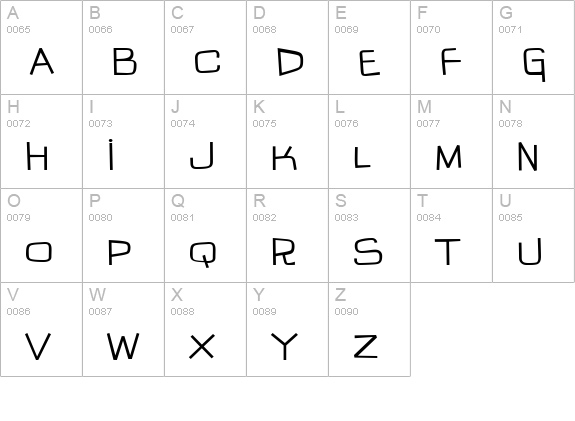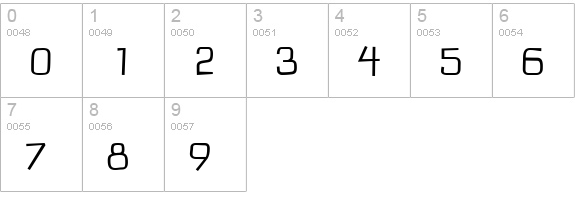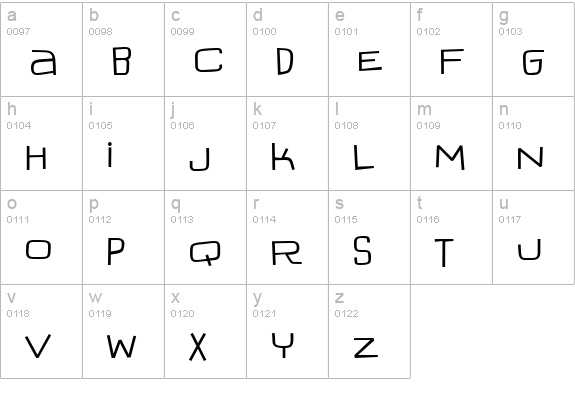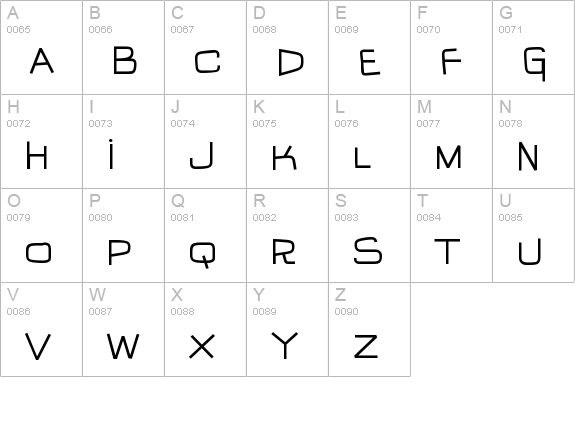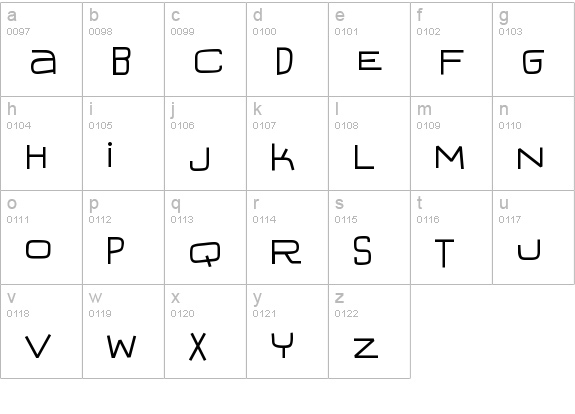
Introducing IguanaLover BTN, a stunningly unique font that will captivate any typography enthusiast. This remarkable typeface showcases an exquisite blend of elegance and playfulness, making it the perfect choice for those who seek to add a touch of charm to their designs. IguanaLover BTN boasts a captivating combination of sleek, curvaceous lines and intricate details, giving it a distinct and eye-catching appeal. Its smooth and flowing letterforms create a harmonious rhythm that effortlessly draws the reader's attention. Each character has been meticulously crafted to ensure a seamless and visually pleasing reading experience. This extraordinary font offers a diverse range of weights and styles, allowing for endless creative possibilities. Whether you're designing a logo, crafting a headline, or even creating a stunning invitation, IguanaLover BTN will effortlessly elevate your project to new heights. The best part? IguanaLover BTN is completely free! Yes, you read that right. This sensational font is freely available to download at FontsMarket.com. Now you can enjoy the elegance and sophistication of IguanaLover BTN without having to spend a dime. Download IguanaLover BTN today and let your imagination run wild. With its seamless blend of grace and personality, this font is guaranteed to leave a lasting impression on any project. Don't miss out on this incredible opportunity to enhance your designs with the beauty of IguanaLover BTN.